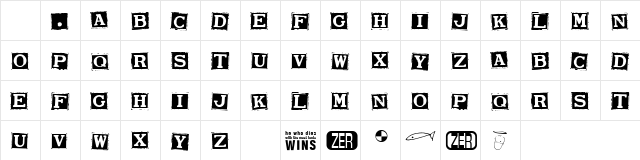
Complete Smargana Wakes glyph index. Displaying only characters natively supported by Smargana Wakes font.
Smargana is a composed and adaptable typeface that performs quietly and consistently across a wide range of design contexts.